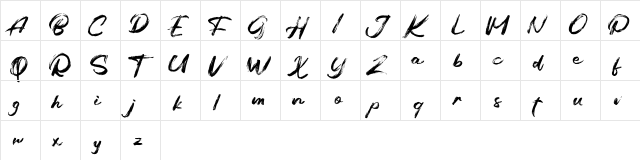
Balges FREE Regular
Design Context for Balges FREE Typeface
Balges FREE is a composed and adaptable typeface that performs quietly and consistently across a wide range of design contexts.